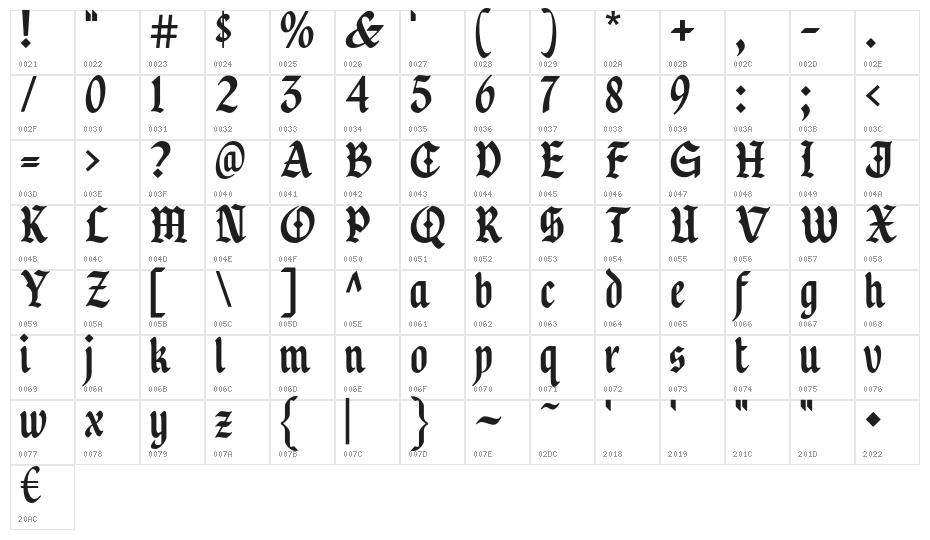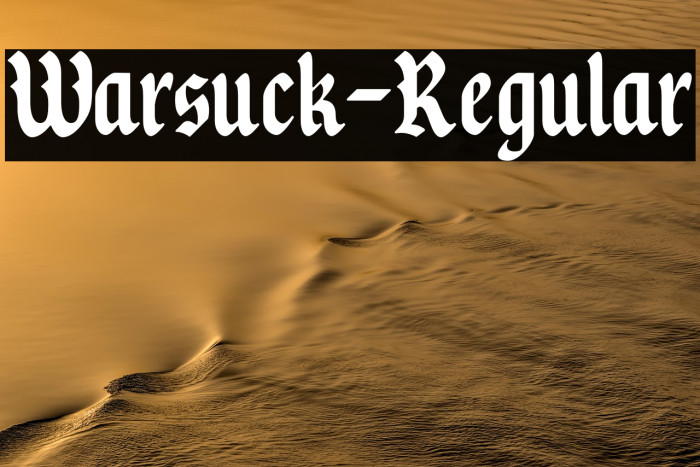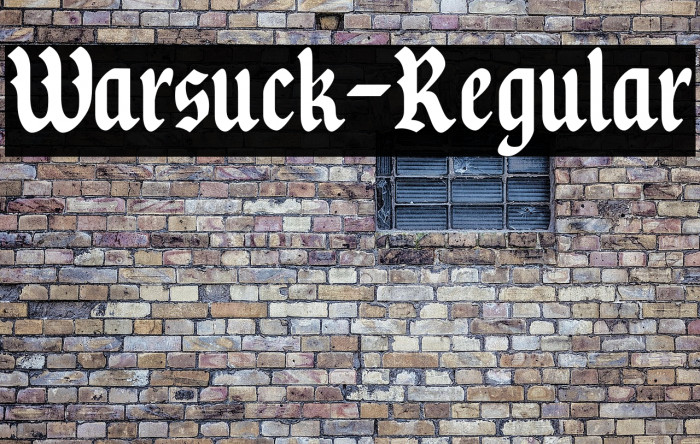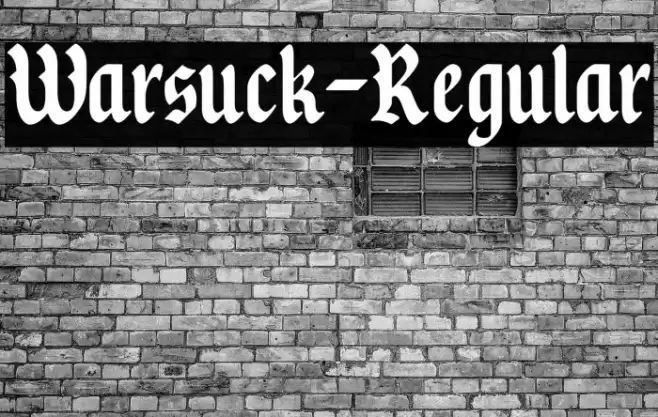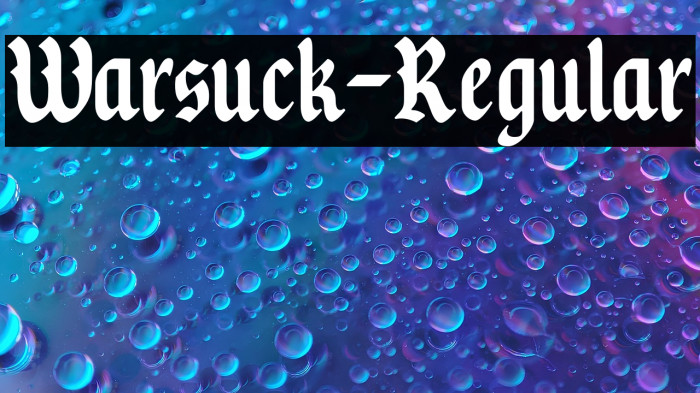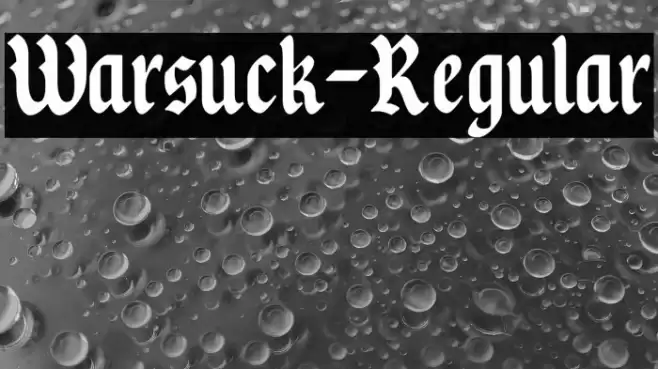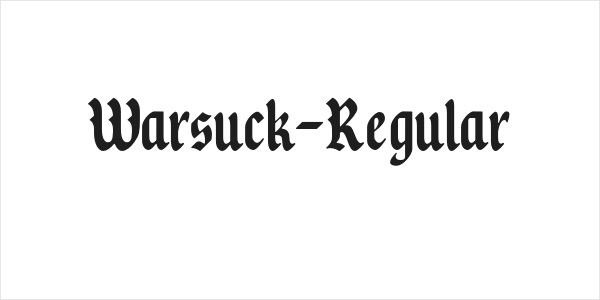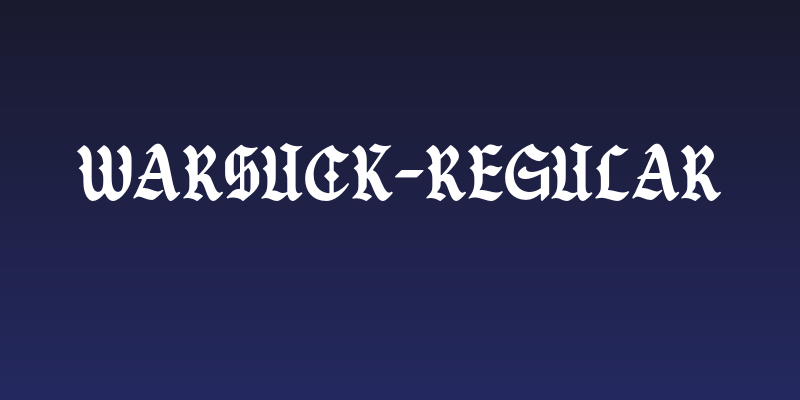
Warsuck-Regular Font
Warsuck-Regular Description
This font exhibits a bold and striking blackletter style, characterized by its sharp, angular lines and intricate detailing. The uppercase letters are particularly ornate, with a medieval flair that evokes historical manuscripts. The lowercase letters maintain the same gothic aesthetic, offering a consistent and cohesive look across the typeface. The numerals are equally stylized, with a unique flair that complements the overall design. Special characters are crafted with the same attention to detail, ensuring they integrate seamlessly with the rest of the font. This typeface is perfect for projects that require a dramatic and historical touch.
| Proposed Projects | Ideal for historical-themed designs, book covers, posters, and branding that requires a dramatic and gothic touch. |